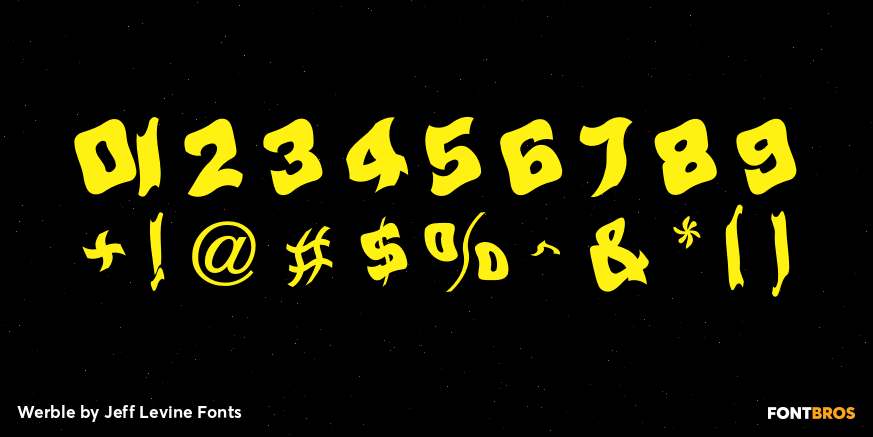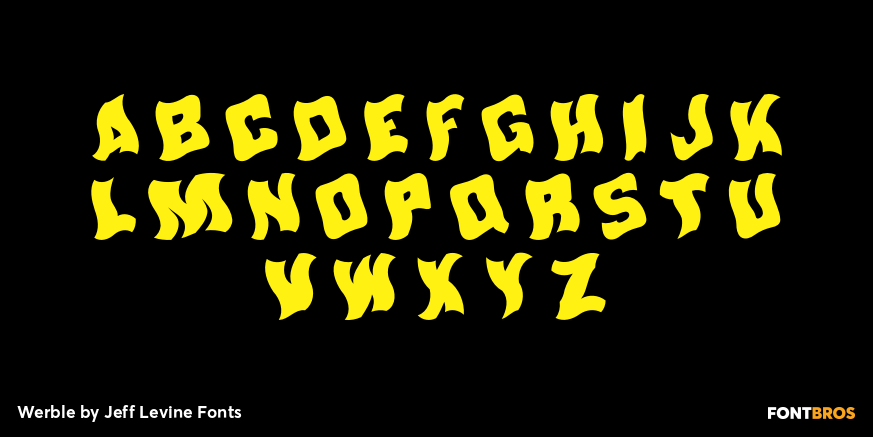
Werble
Werble JNL is a wiggly, wavy, novelty font that can be used for anything that needs to show movement. It also lends itself well to spooky themes such as Halloween or horror films.
Werble JNL Regular by Jeff Levine Fonts